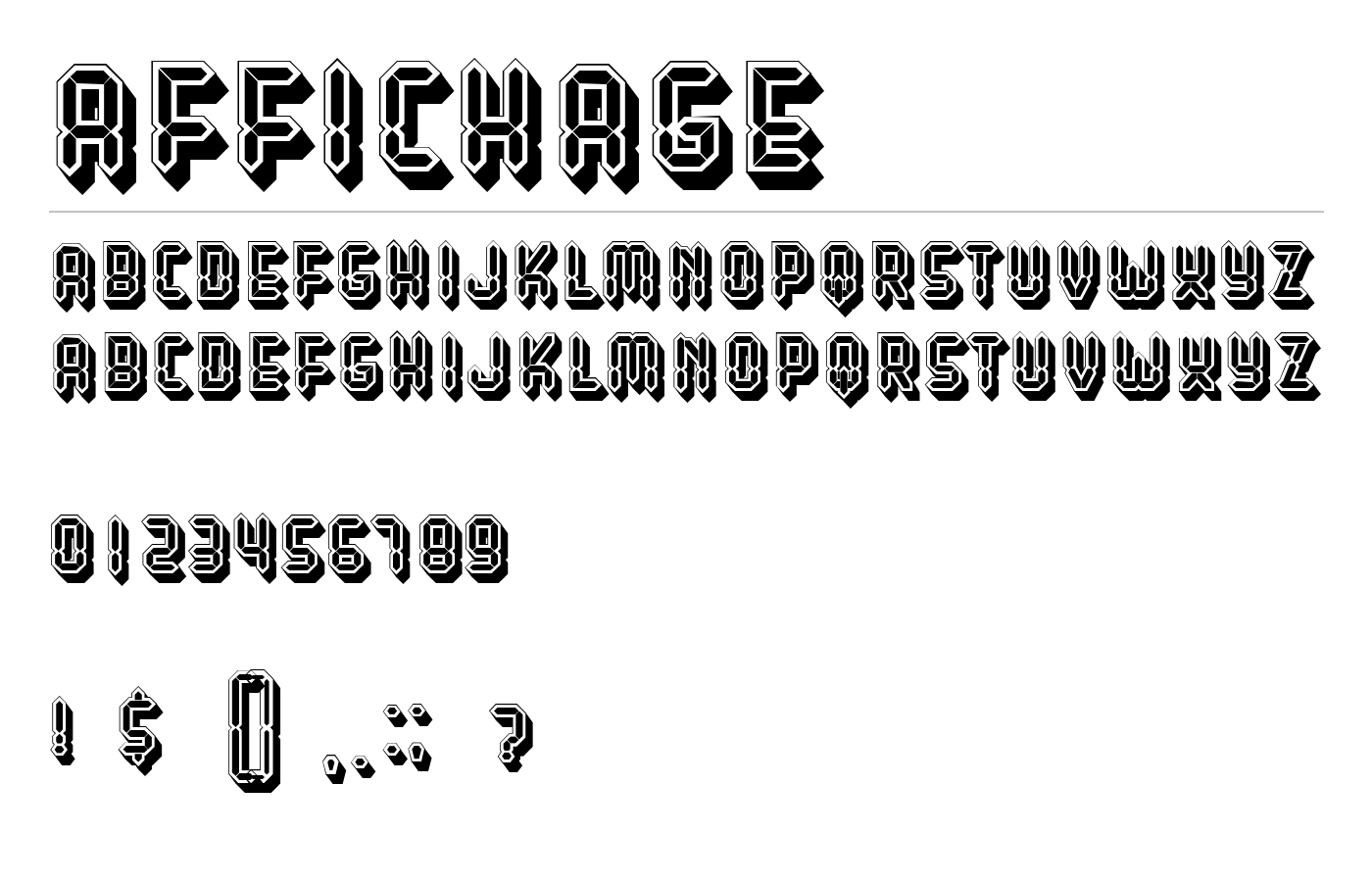
Affichage is a bold, decorative sans serif font with a distinctive three-dimensional, geometric style that creates a strong visual impact. Its blocky, angular letterforms with high contrast and intricate internal detailing make it ideal for eye-catching headlines, posters, and branding projects that seek a modern yet vintage-inspired industrial vibe. This font works best in large sizes where its unique structure and shadow effects can really stand out and command attention.
Affichage Font
About Affichage Font